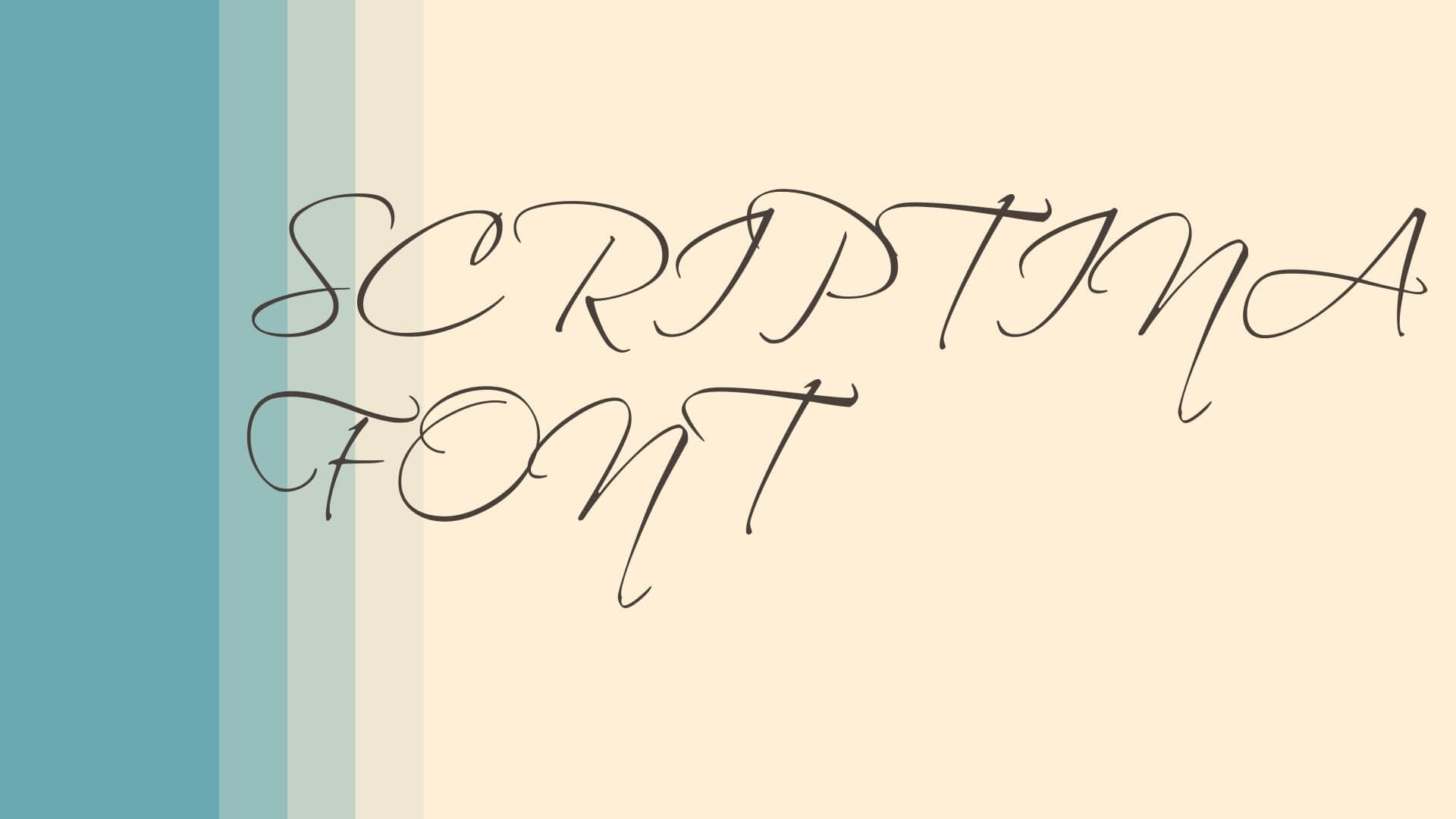
Scriptina Font
Scriptina Font Family is a script typeface family and the designer of this marvelous typeface is Apostrophic Labs. This gorgeous typeface was released on the 8th of January and 2009. After its releases, this is also updated with several additions. This dry brush script looks like Allura Font one of the fashionable fonts to be had within the marketplace for pretty designs and exquisite layouts.
This script font comprises 220 unique glyphs and more than 200 different scripts characters including uppercase, lowercase, numerals, symbols, punctuations, and some special characters too. The typeface gives calligraphy and classy touch to the designs and well goes on every platform.
Features of Scriptina Font
• This is an elegant calligraphy font that provides a calligraphic touch to the designs and can perfectly use for business cards, invitations card designs, homeware designs, wedding cards, and many more.
NameScriptina Font
DesignerApostrophic Labs
StyleCalligraphy
What Type of Font Is Scriptina?
This is a calligraphy and script typeface family. The designer of this ultra-modern font is Apostrophic Labs. This typeface has more than 220 stylish characters and 222 unique glyphs.
Is Scriptina a Professional Font?
Yes, of course, this typeface is the most worth using typeface and it is recommended for many designing purposes like you can make this stylish font for business cards, business projects, web designs, app development, magazines, and newspaper, professional signatures, and many other related tasks.